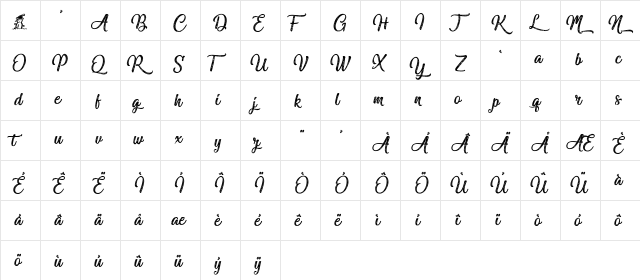
Miraculous&Christmas Regular
Design Context for Miraculous&Christmas Typeface
Miraculous&Christmas is a composed and adaptable typeface that performs quietly and consistently across a wide range of design contexts.